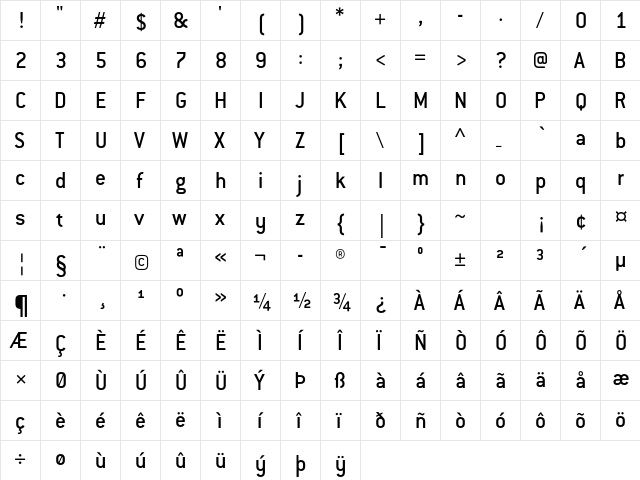
ConduitITCStd Medium
| Foundry | International Typeface Corporation |
| Designer | Mark van Bronkhorst, MvB Design |
Design Context for ConduitITCStd Typeface
ConduitITCStd offers clean, dependable letterforms without strong stylistic allegiance, making it a practical choice for designers who need flexibility. Its narrow stance lets it pack a punch even in space-constrained designs.
Dating back to 1997, this typeface is available in OpenType (OTF) format.